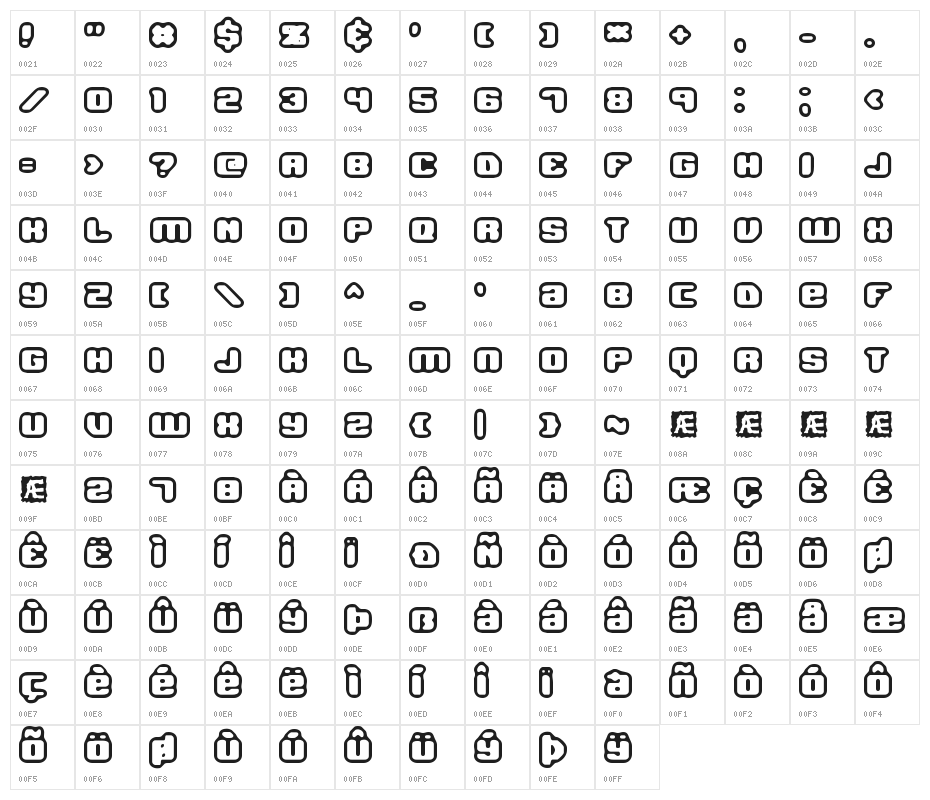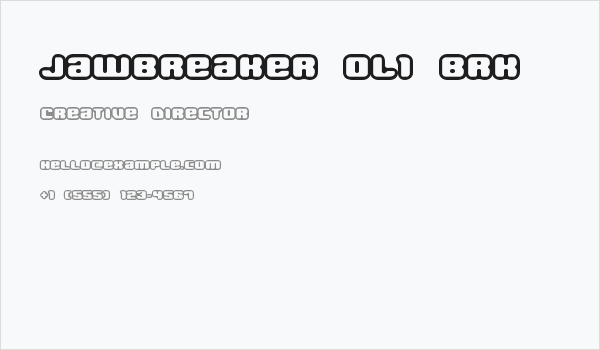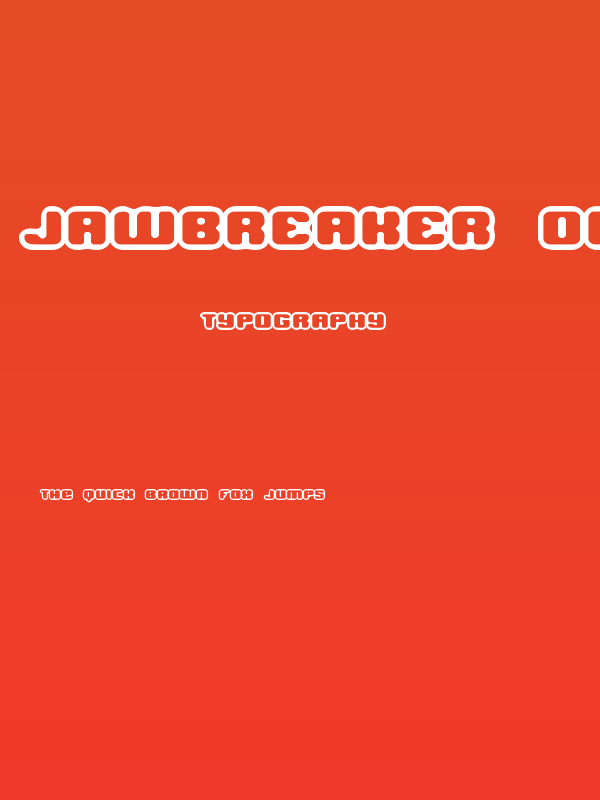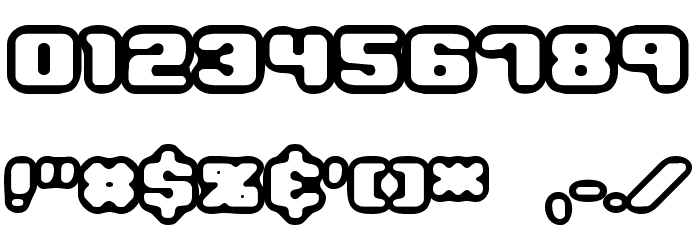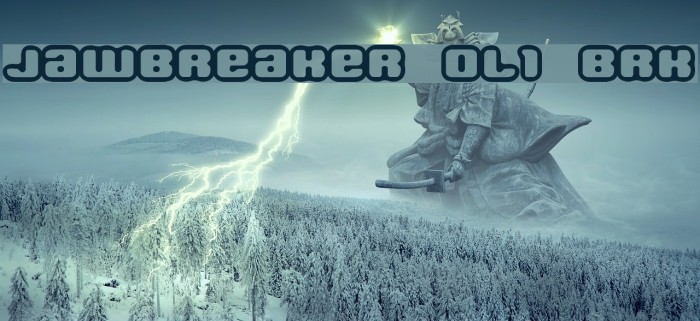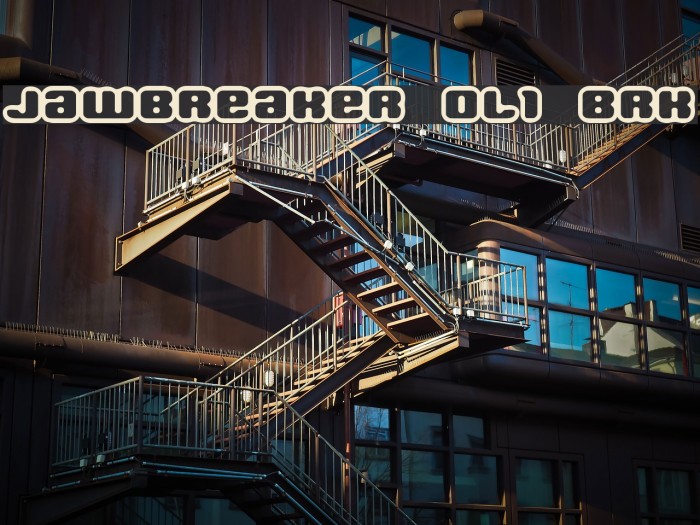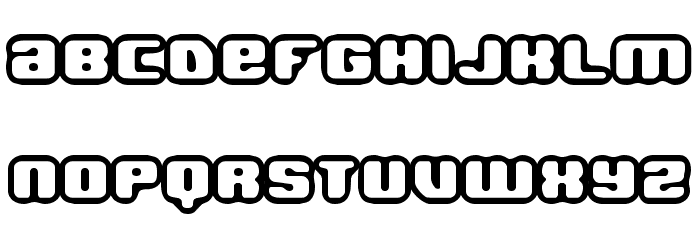
Jawbreaker OL1 BRK Font
Jawbreaker OL1 BRK Description
This font features a bold, playful design with rounded edges and a thick outline, giving it a bubble-like appearance. The characters are uniformly wide, creating a cohesive look across both uppercase and lowercase letters. The numbers and special characters maintain this consistent style, making the font suitable for eye-catching designs. Its distinct, chunky form is ideal for projects that require a fun and engaging aesthetic. The font's unique style makes it stand out, perfect for creative and informal applications.
| Overall Style | Playful, Modern |
| Proposed Projects | Ideal for children's books, playful branding, posters, and party invitations. |